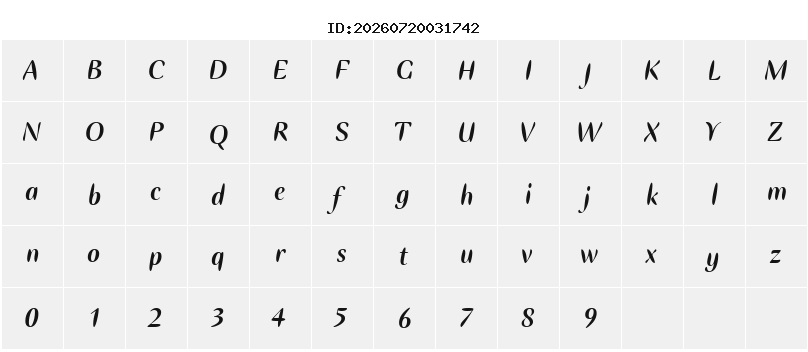
• Font Name: Ellipse ITC
• Full Font Name: Ellipse ITC Bold Italic
About Ellipse ITC.ttf
Ellipse ITC.ttf is a modern, elegant sans-serif font designed for ultimate readability and visual harmony. Perfect for branding, headlines, web design, and print materials.